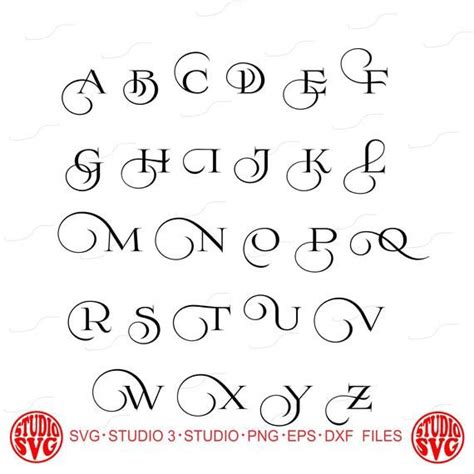
Calligraphy Fonts Copy And Paste. Web learn about the history and styles of calligraphy fonts, and how to create text graphics and logos with them online. Calligraphy is a form of art with the pen/ brush strokes style.
Web learn about the history and styles of calligraphy fonts, and how to create text graphics and logos with them online. Calligraphy is a form of art with the pen/ brush strokes style. It creates an aesthetic appeal for your.
It creates an aesthetic appeal for your. Web learn about the history and styles of calligraphy fonts, and how to create text graphics and logos with them online. Calligraphy is a form of art with the pen/ brush strokes style. It creates an aesthetic appeal for your.